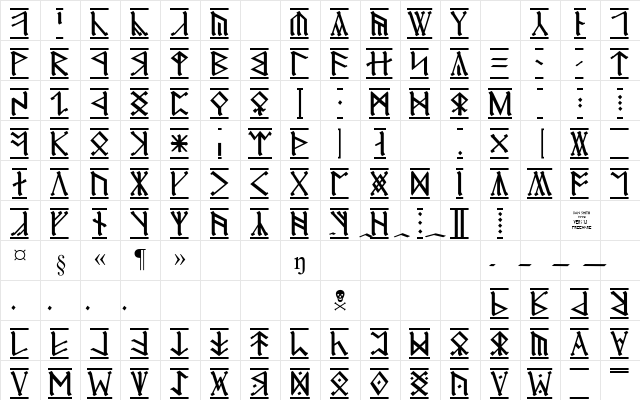
Cirth Erebor-1 Regular Font Preview
Cirth Erebor-1 Regular
Cirth Erebor-1 Regular Font Details
Design Context for Cirth Erebor-1 Typeface
Cirth Erebor-1 is a composed and adaptable typeface that performs quietly and consistently across a wide range of design contexts.